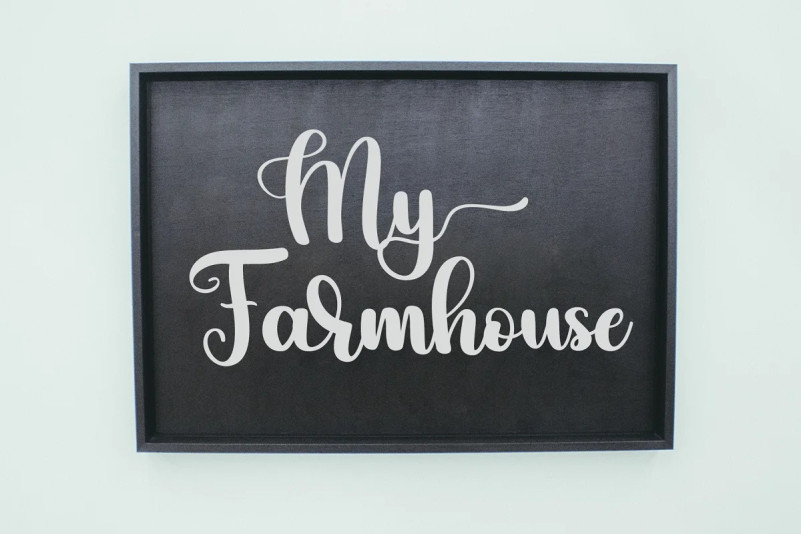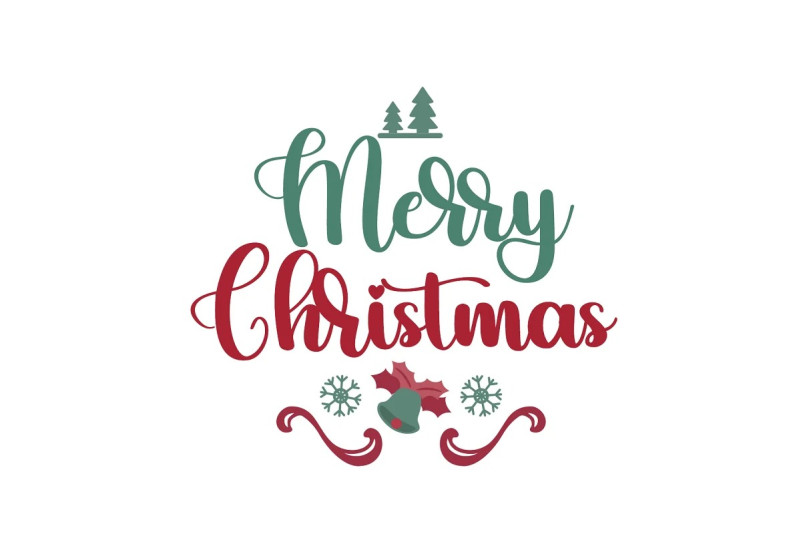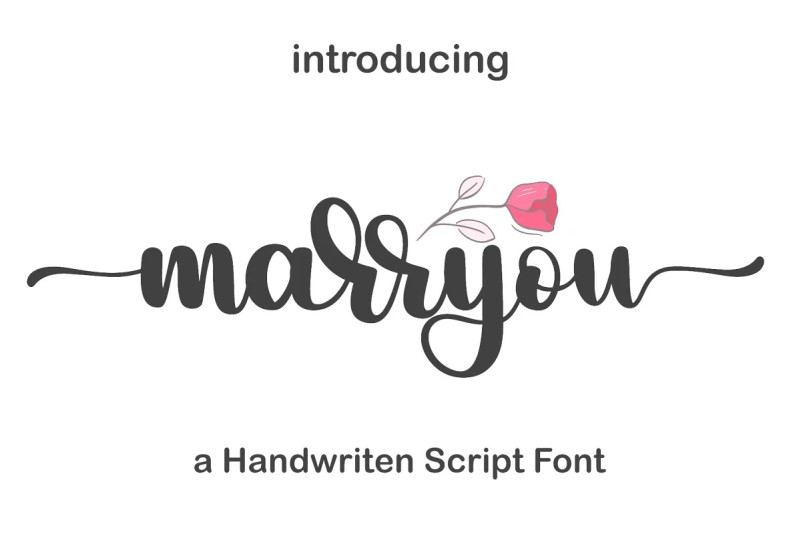
Marryou Font
Marryou Font is a whimsical script font with a relaxed theme, featuring a lovely style. This font is PUA encoded which means you can access all of the glyphs and swashes with ease!